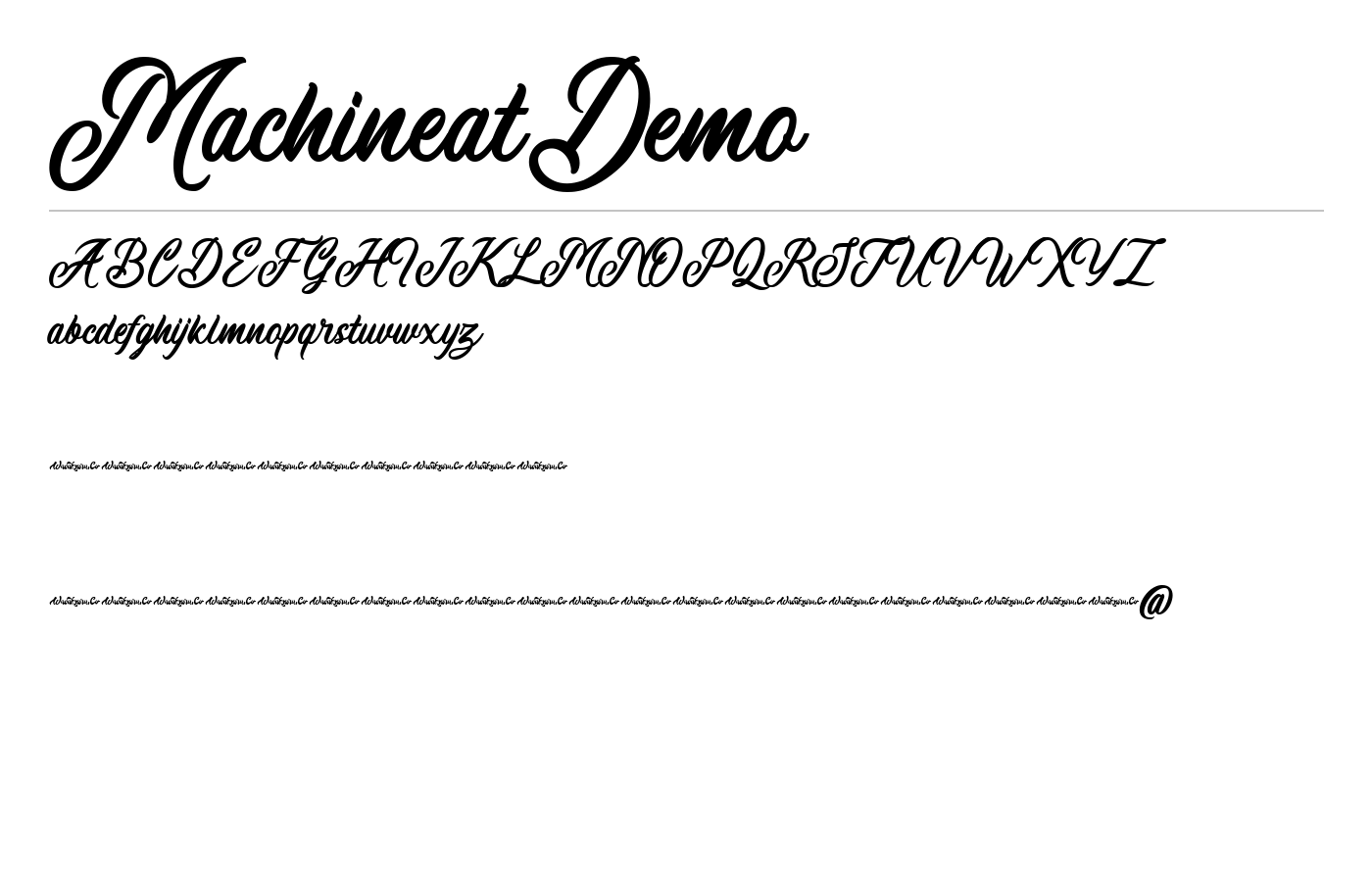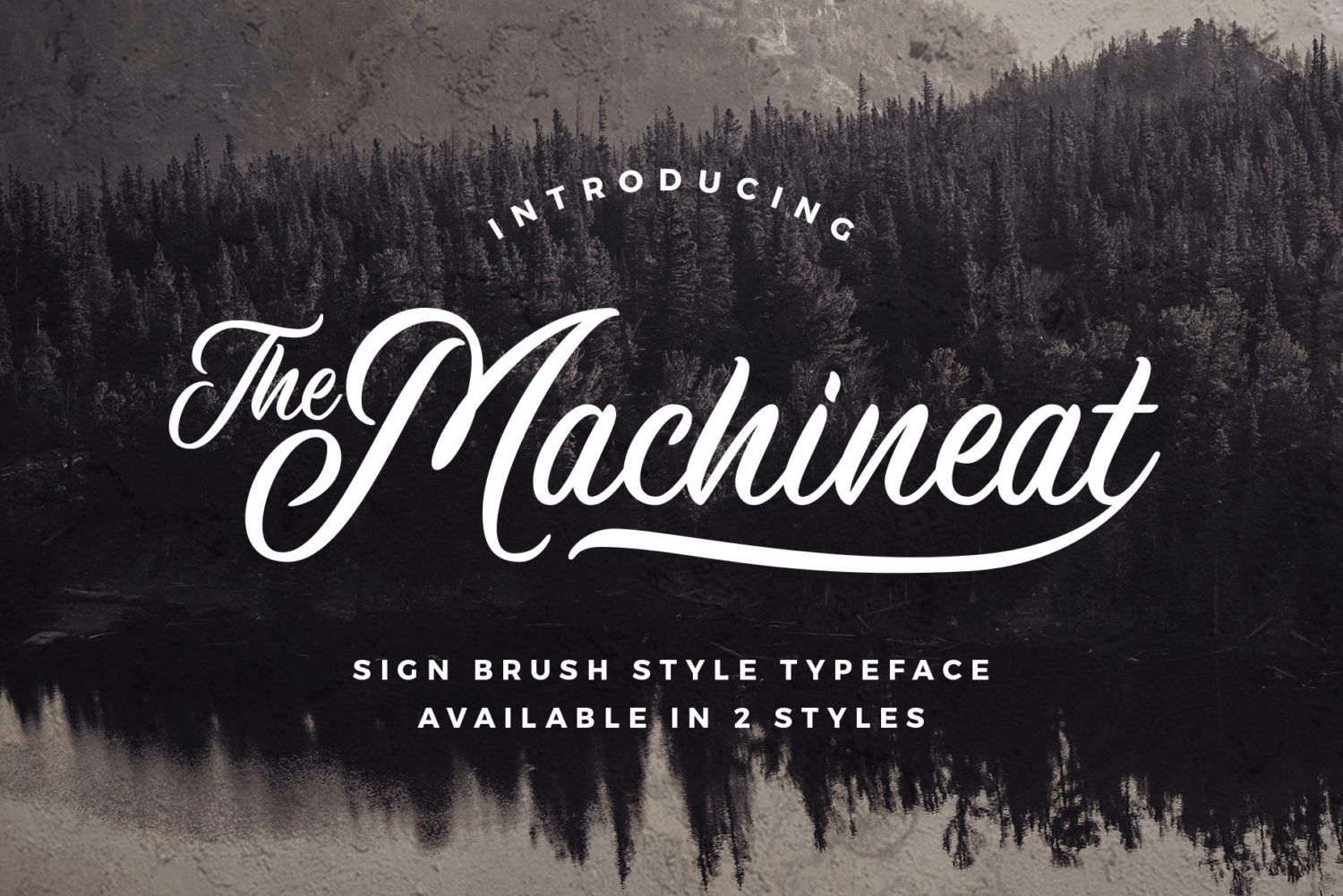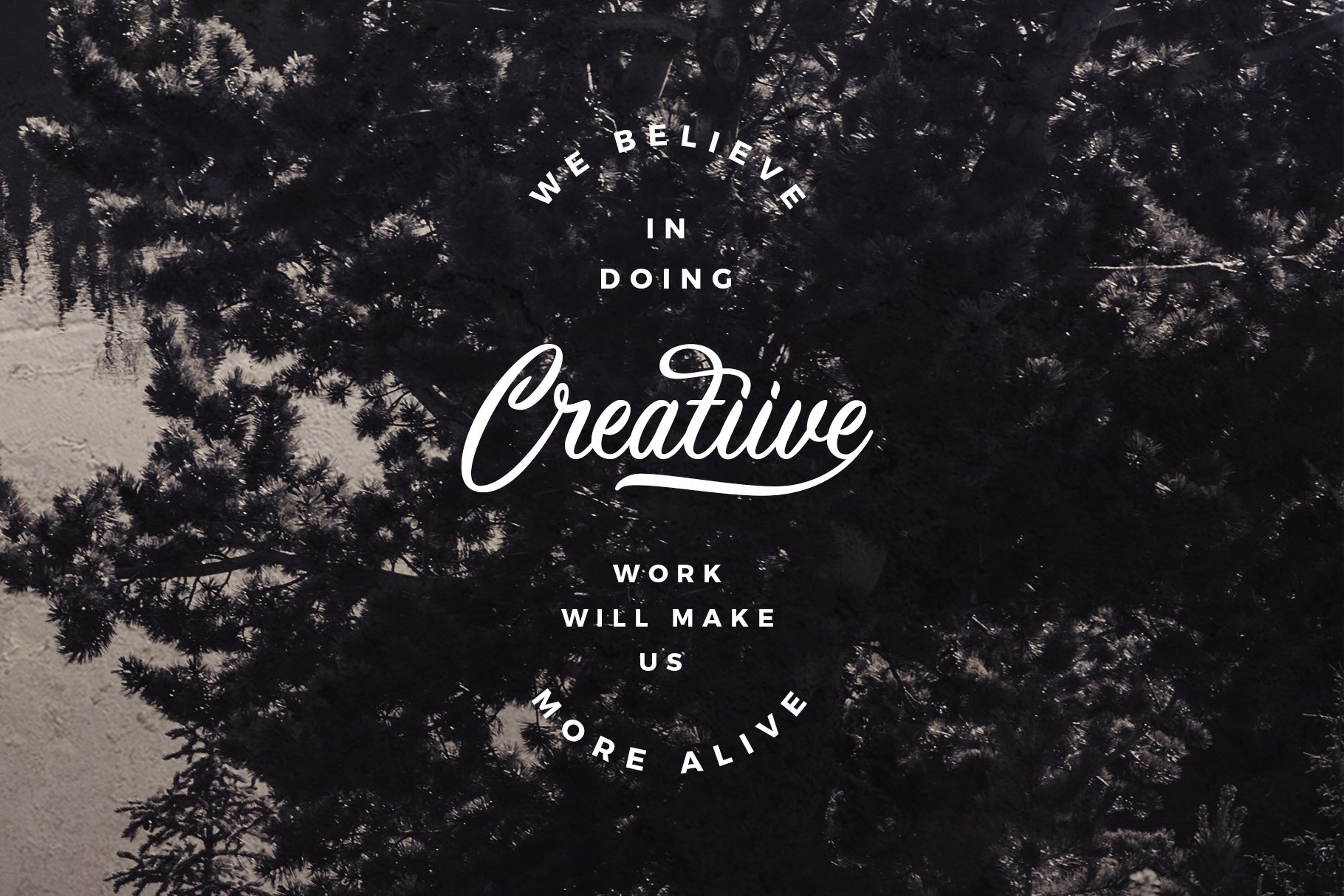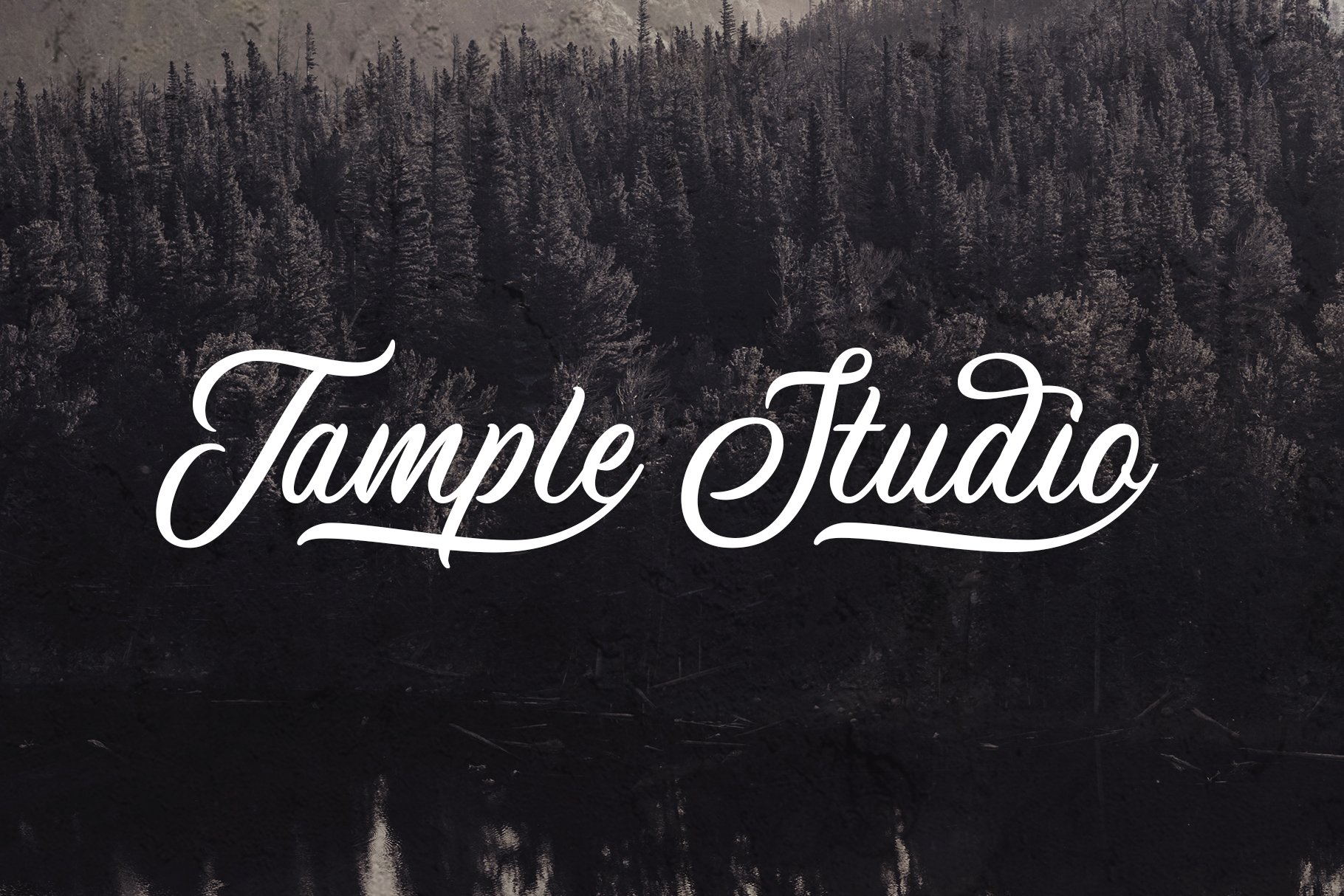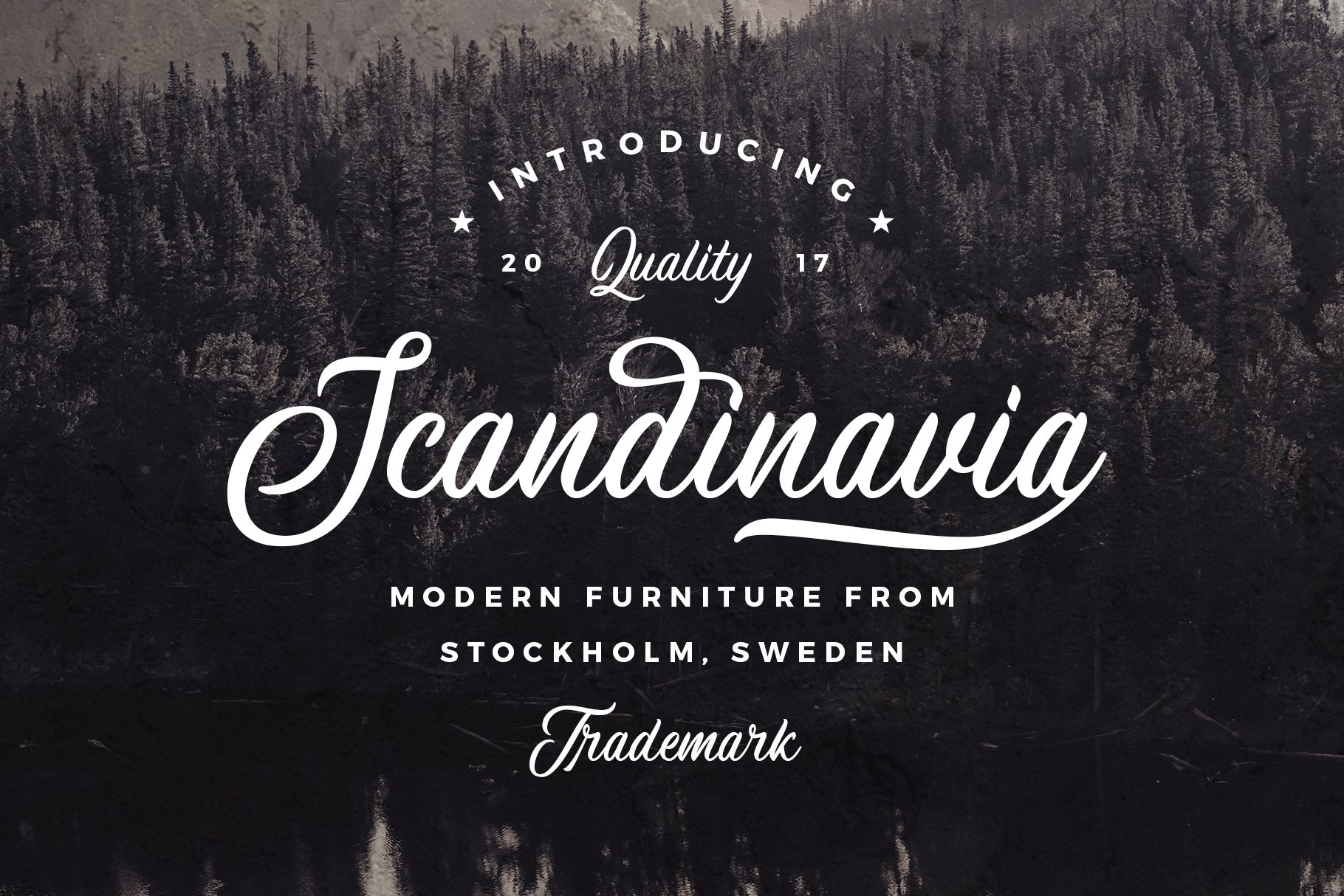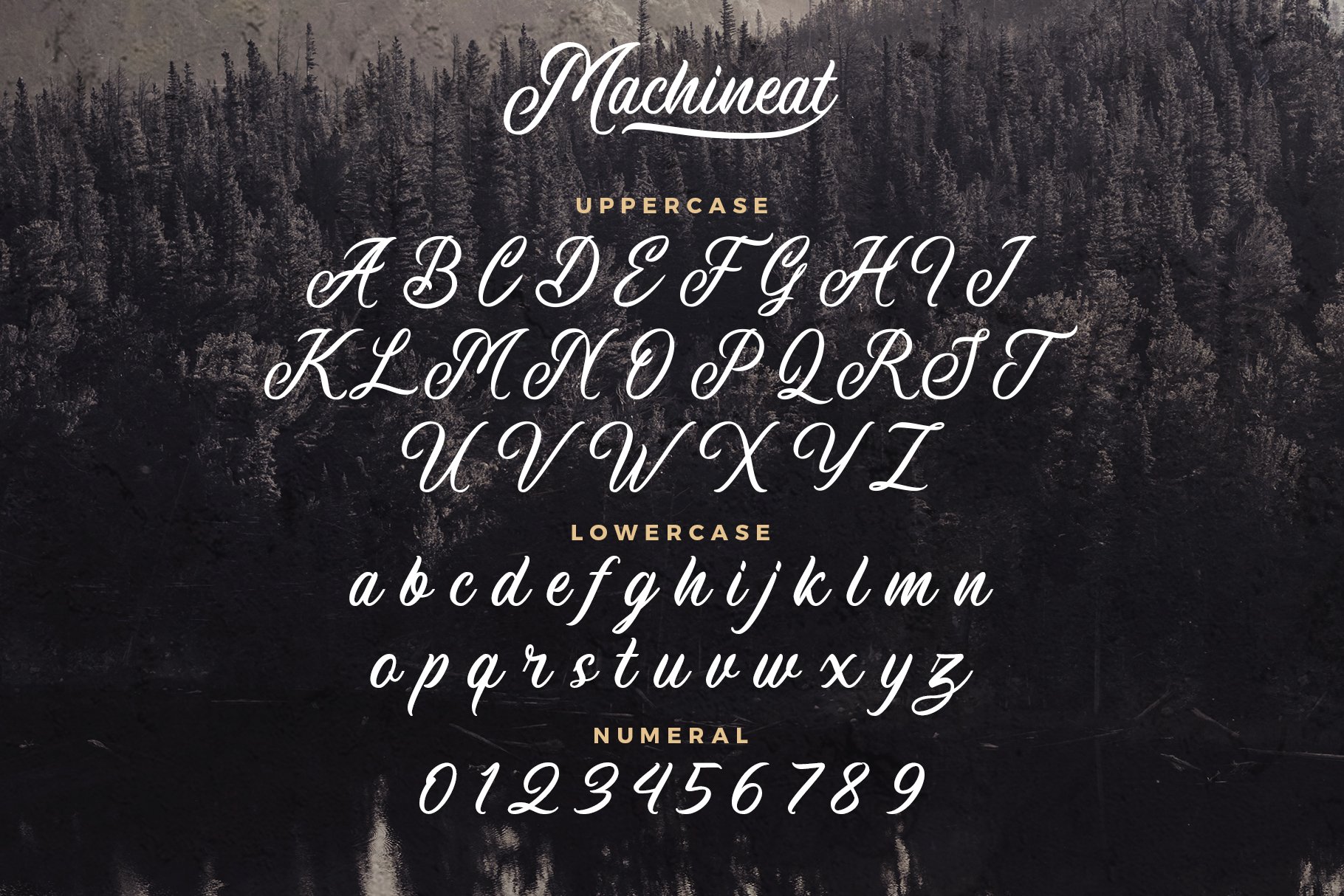
Machineat Font Demo is a stylish script font with a smooth, elegant flow and a medium weight that gives it a lively yet refined feel. Its connected letterforms and classic cursive style make it ideal for invitations, branding, and logos that seek a personal, sophisticated touch. This font works best in decorative or headline uses where a graceful, handwritten look is desired.
Machineat Font Demo
About Machineat Font Demo